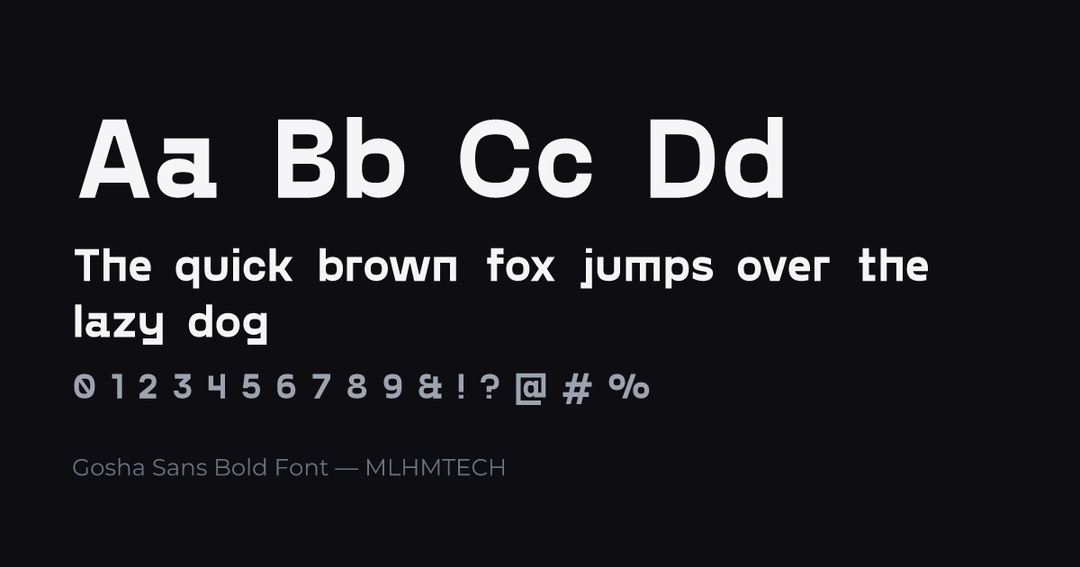
Gosha Sans Bold Font
Gosha Sans Bold is a modern geometric sans-serif font with a clean, bold look. Ideal for headlines, logos, and branding projects.
Gosha Sans Bold is a versatile geometric sans-serif font that brings a contemporary feel to any design. Its bold weight and clean lines make it perfect for headlines, titles, and display purposes. Whether you're working on a logo, poster, or branding campaign, this font adds a touch of sophistication and strength.
The font is provided in OTF format, ensuring high quality and compatibility with most design software. Its geometric shapes and uniform strokes create a harmonious and professional appearance. Use it to make a bold statement in your next project.